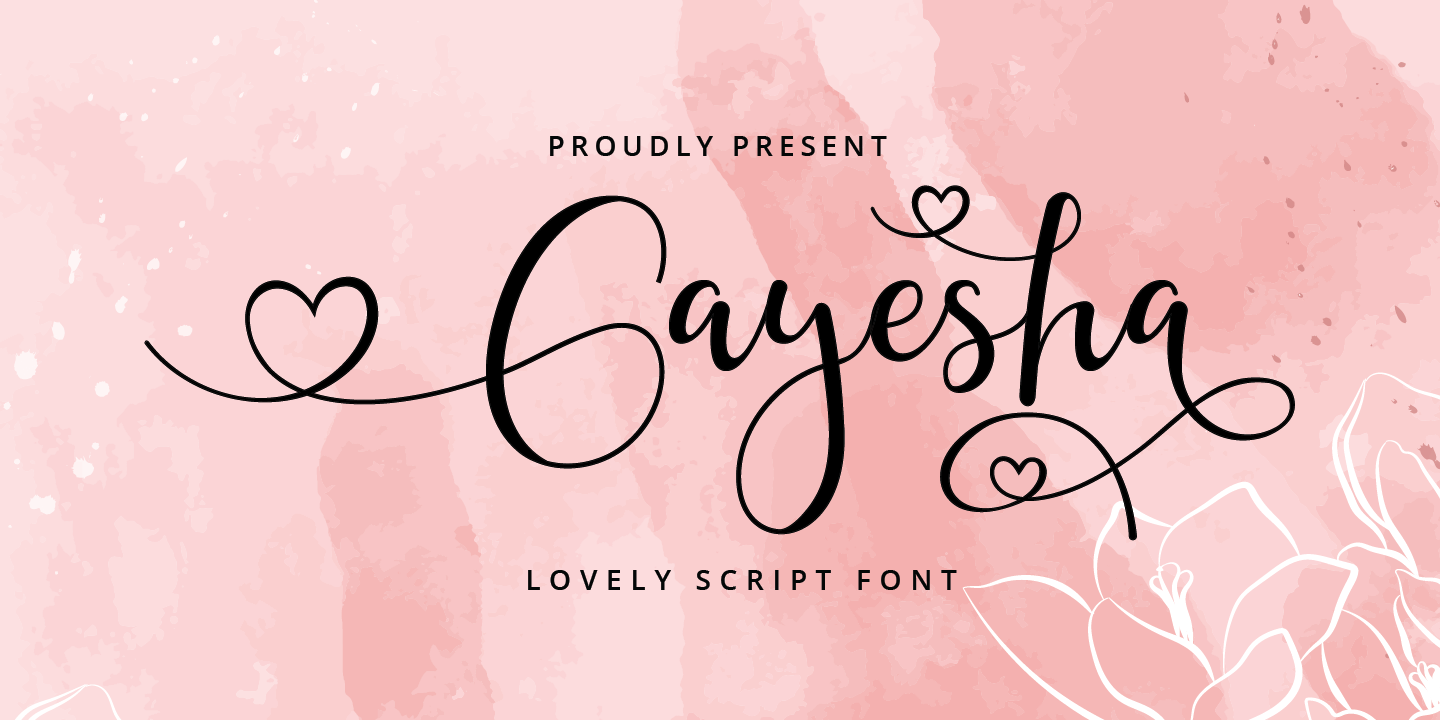
Gayesha Font is ideal for elegant fashion branding, luxury beauty products, sophisticated lifestyle magazines, graceful wedding invitations, refined cultural events, exclusive boutique signage, and distinguished feminine marketing.
What makes Gayesha Font exciting is its graceful sophistication and feminine elegance, featuring refined letterforms that capture the essence of distinguished beauty while delivering exceptional visual grace and sophisticated authenticity.
The Gayesha Font family includes Light, Regular, Medium, Bold, and Heavy weights, plus elegant variants and sophisticated alternates that enhance the font's graceful character and feminine possibilities.
Gayesha Font Free Download embodies the timeless essence of feminine grace and sophisticated elegance through distinguished typography design. This refined typeface captures the gentle strength of feminine beauty and the cultured sophistication of graceful living, creating an elegant visual language that speaks to discerning women and luxury brands who value refined aesthetics, cultural sophistication, and the enduring appeal of feminine elegance. The font's graceful character and sophisticated appearance make it perfect for luxury fashion houses, high-end beauty brands, and elegant lifestyle companies that want to communicate refinement, grace, and the distinguished appeal of feminine sophistication.
Luxury fashion brands and sophisticated beauty companies consistently choose Gayesha Font for projects that require authentic feminine credibility and elegant visual appeal. The typeface's refined construction and graceful personality make it exceptionally effective for high-end fashion boutiques, luxury cosmetics brands, and sophisticated lifestyle publications where feminine elegance and cultural refinement are paramount. Each character has been crafted with sophisticated precision to ensure maximum grace across all luxury applications and elegant environments.
The sophistication advantages of Gayesha Font extend beyond its feminine appeal to include practical functionality for diverse luxury applications. The font maintains excellent readability in upscale settings while delivering the distinctive character that creates memorable luxury experiences and connects with audiences seeking authentic feminine sophistication. Its comprehensive character set includes elegant symbols and refined elements that make it particularly suitable for luxury documentation and sophisticated communication.
High-end fashion houses, luxury beauty brands, and sophisticated lifestyle companies frequently incorporate Gayesha Font into their brand identity systems because of its ability to instantly convey feminine authenticity and elegant sophistication. The typeface's graceful aesthetic helps establish credibility in competitive luxury markets while appealing to women who value refined beauty, cultural elegance, and the distinguished experiences that come from authentic feminine sophistication and graceful luxury living.